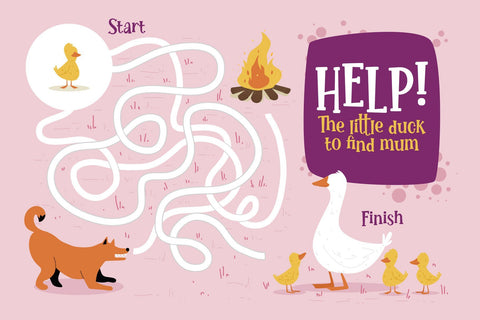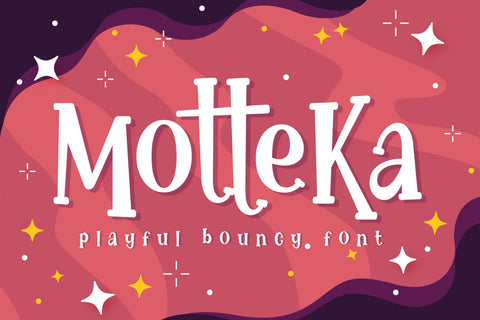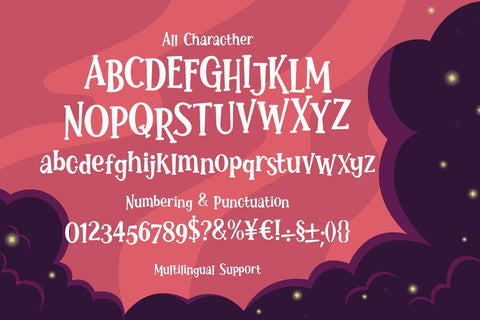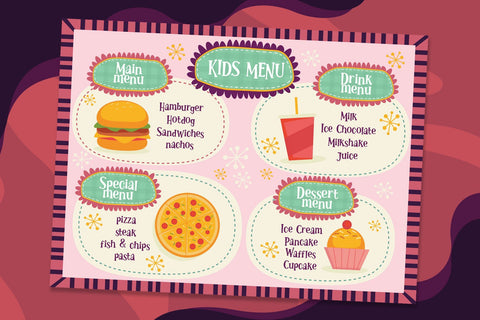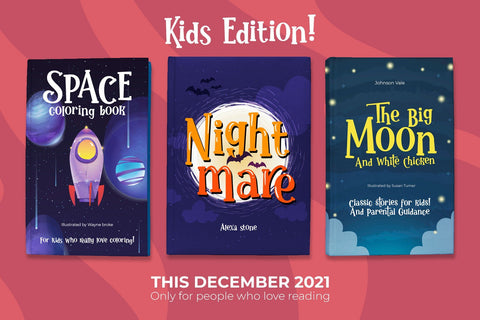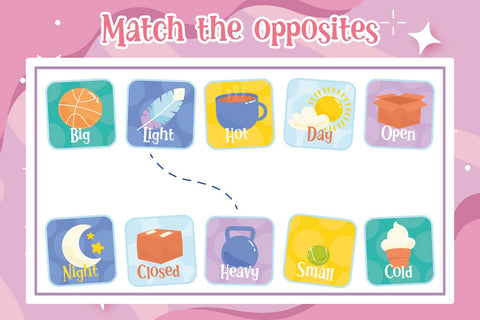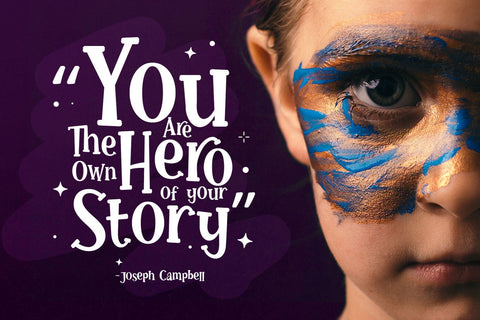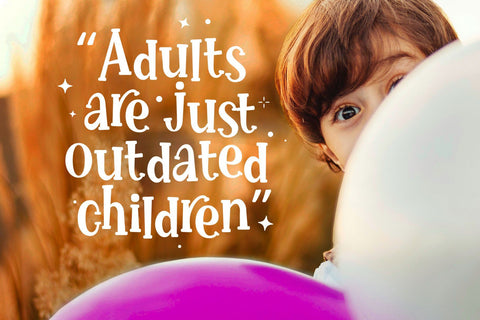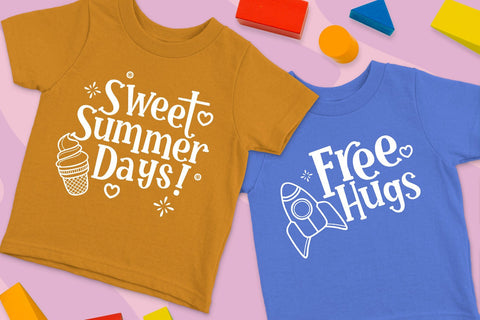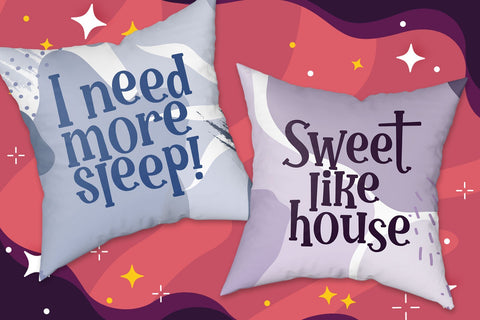
Motteka a Playful Bouncy Font
Introducing Motteka, a playful display font inspired by children's books and handwritten font. This font designed with a bouncy layout of the letters that give a very playful look, childish, and funny impression. Complete with some OpenType features. Motteka is a great choice for display, poster, flyer, headline, craft, educational/storybook, kids theme, fantasy, family, and more!
Fonts featured:
• Uppercase
• Smallcaps
• Numbers
• Symbol & punctuations
• Ligatures
• Stylistic alternates